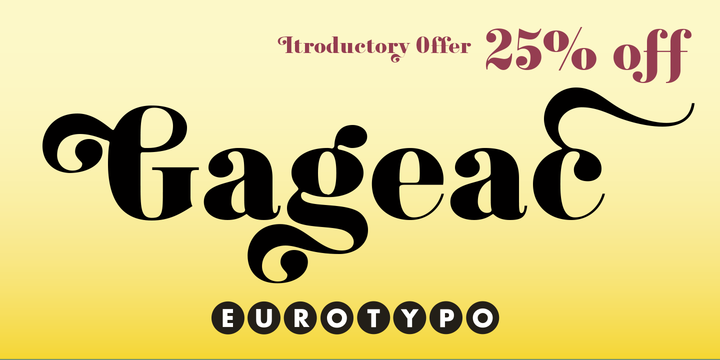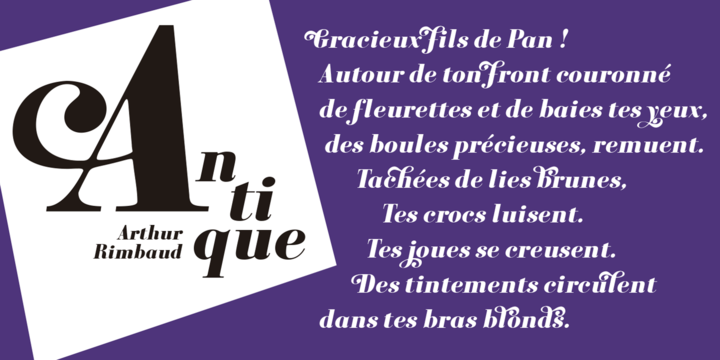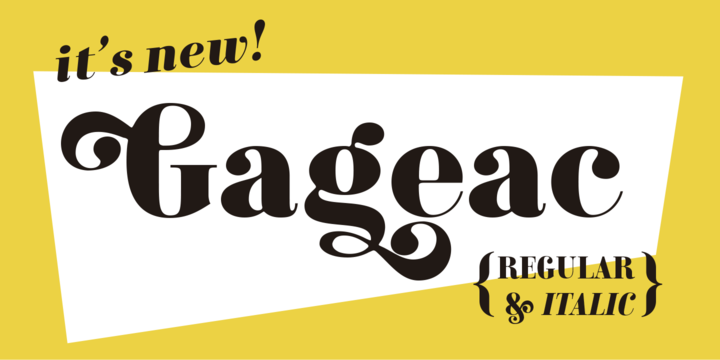
Gageac is a classic Didona font, characterized by an extreme contrast in the thick and thin strokes, by the use of short serifs, and by the vertical stress of the letters.
This typeface is slightly condensed, the ascenders were lowered, the thick strokes were exaggerated and enriched with a full set of OpenType features of tails, ligatures, alternates and swashes, giving them an excellent legibility and a very clear and elegant appearance.
The italic version is a true italic so some glyphs were adjusted. Gageac Italic was carefully designed and drawn to be combined with Gageac Regular.